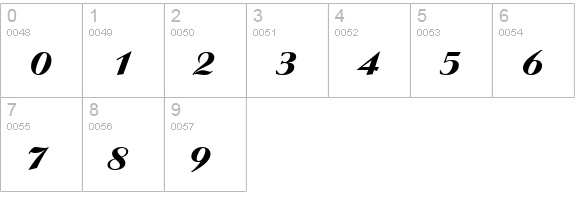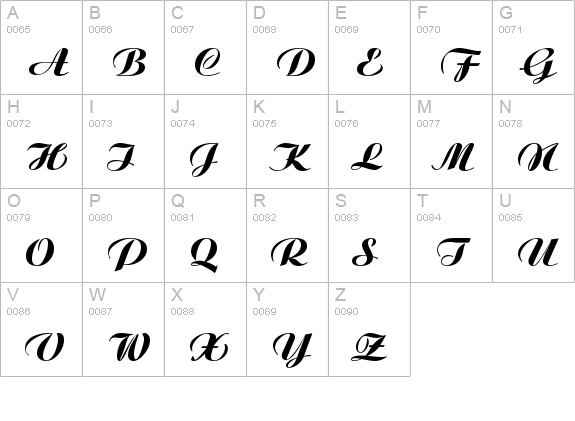
TR Aristocrat Font Details
TR Aristocrat is a sophisticated and elegant font that exudes class and luxury. Its timeless design makes it a perfect choice for projects that require a touch of sophistication, such as wedding invitations, branding materials, and editorial layouts. The delicate serifs and graceful curves of TR Aristocrat give it a refined and upscale feel that is sure to make any design stand out. What sets TR Aristocrat apart is not only its stunning appearance but also the fact that it is available for free download at FontsMarket.com. This means that you can add a touch of elegance to your projects without breaking the bank. Whether you're a seasoned designer looking for a new favorite font or a beginner looking to elevate your designs, TR Aristocrat is the perfect choice. Download it today and add a touch of luxury to your next project.